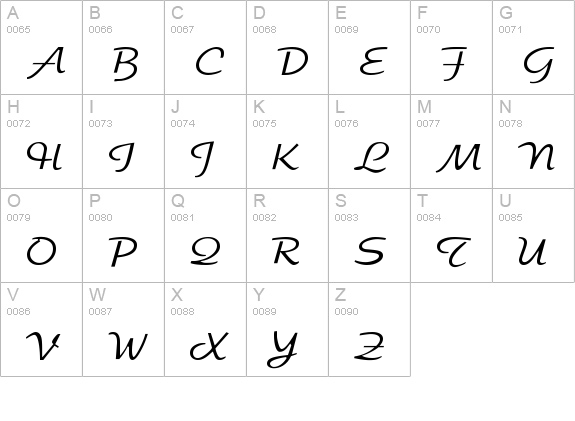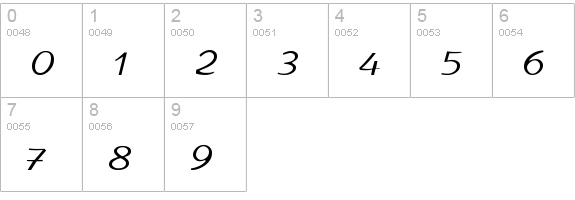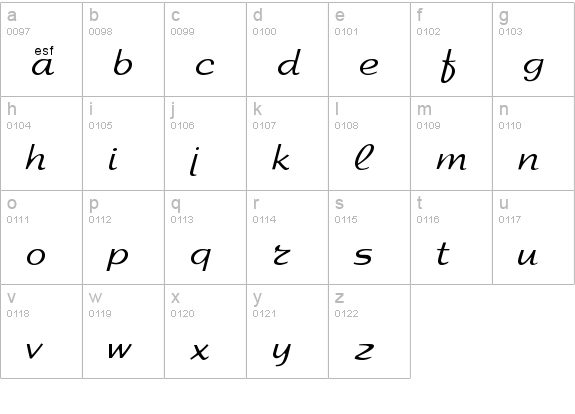
Elfring EliteLight Font Details
The Elfring EliteLight font exudes elegance and sophistication with its sleek lines and modern design. This versatile typeface is perfect for adding a touch of class to any project, whether it be for professional documents or creative endeavors. The Elfring EliteLight font offers a perfect balance of style and readability, making it suitable for a wide range of applications. Best of all, the Elfring EliteLight font is completely free to download at FontsMarket.com. This means that you can elevate your designs without breaking the bank. Don't miss out on this fantastic opportunity to enhance your projects with the timeless beauty of the Elfring EliteLight font. Download it today and see the difference it can make in your work!